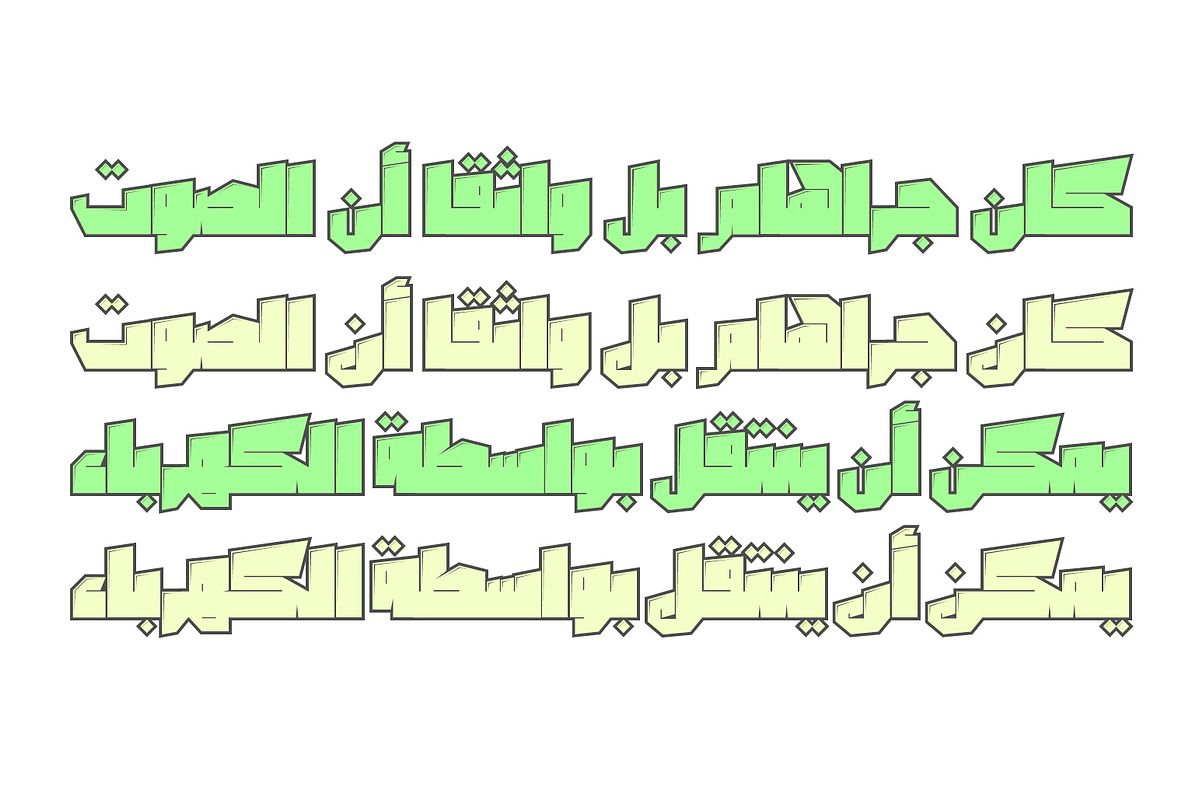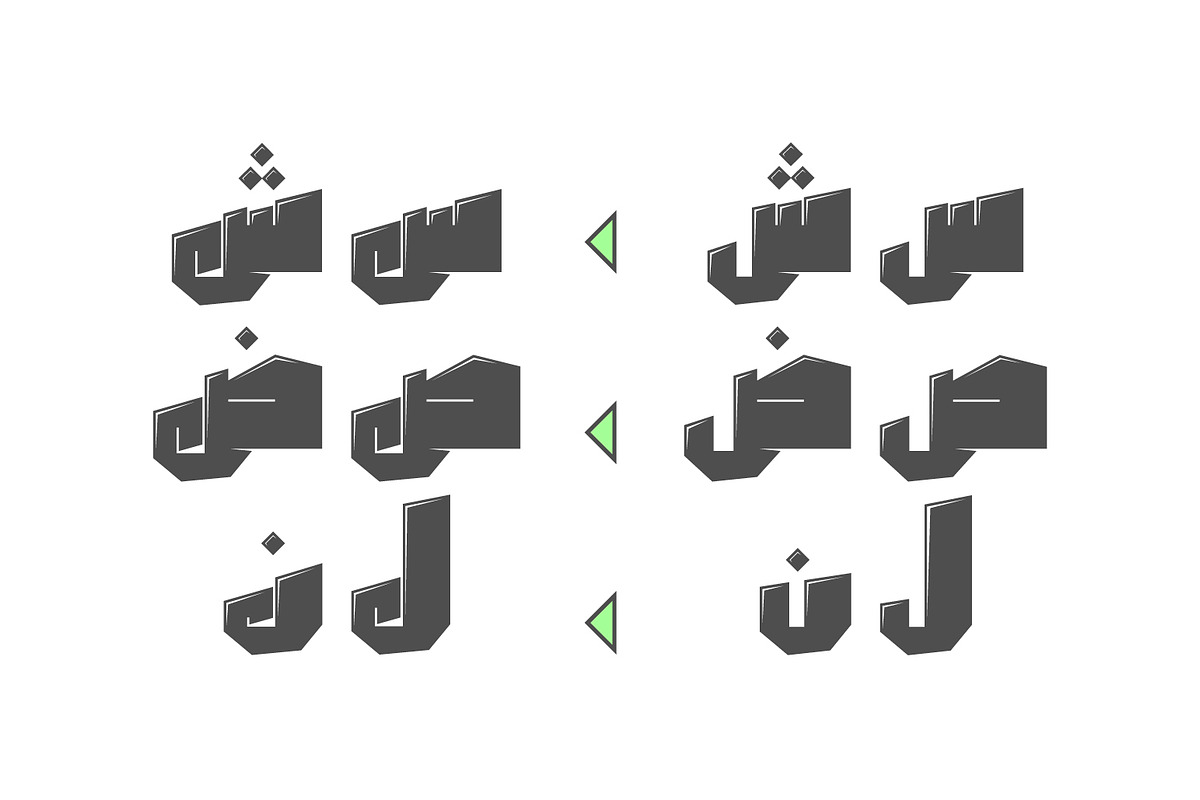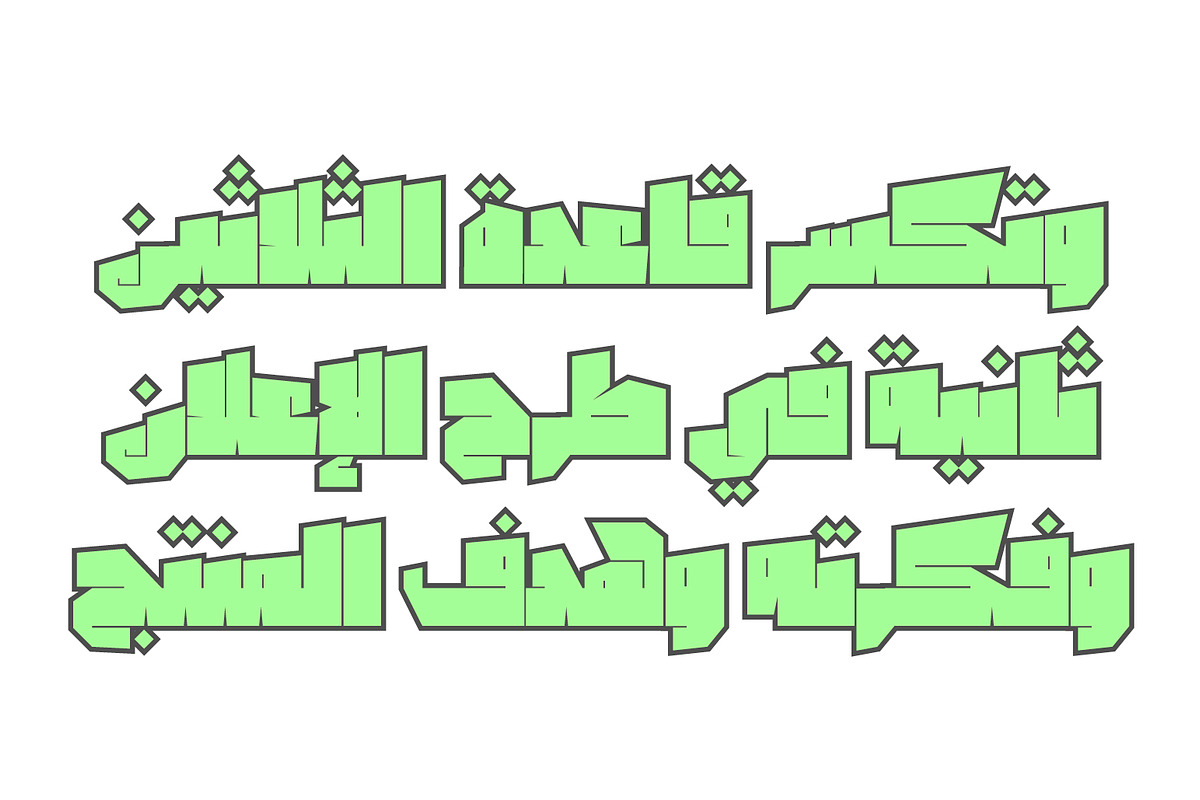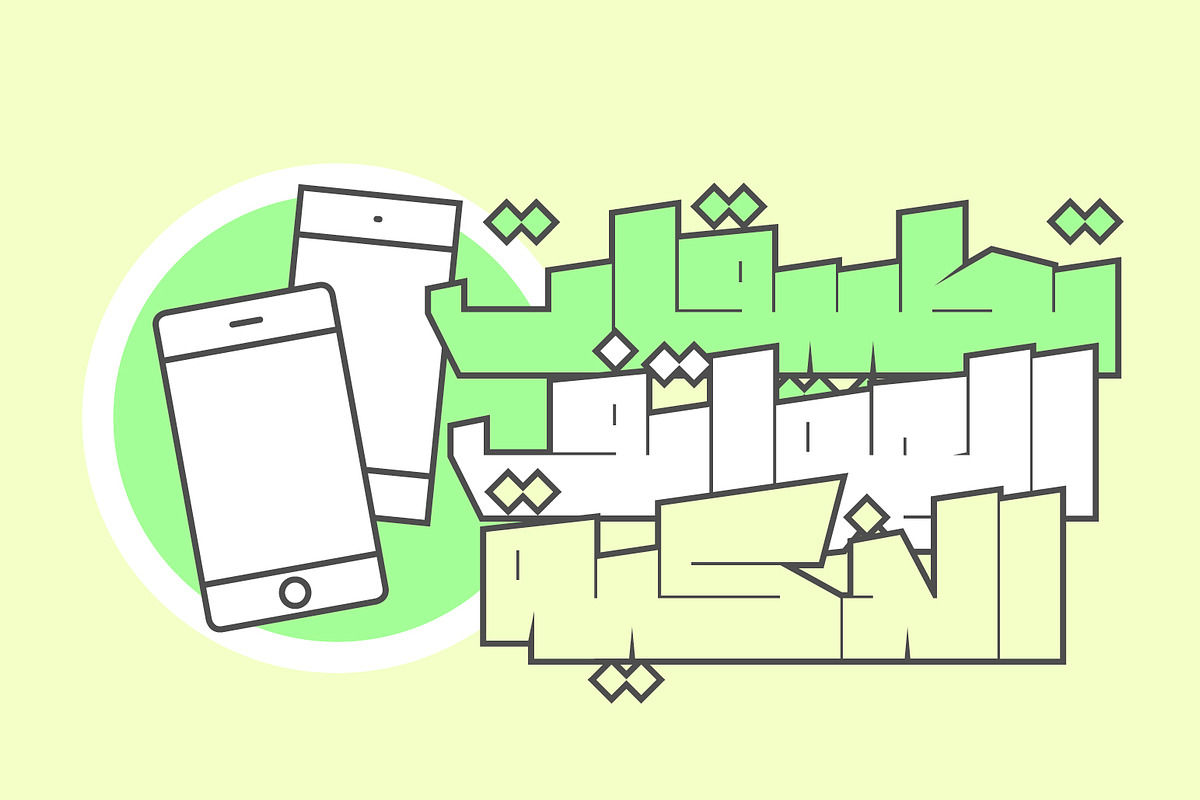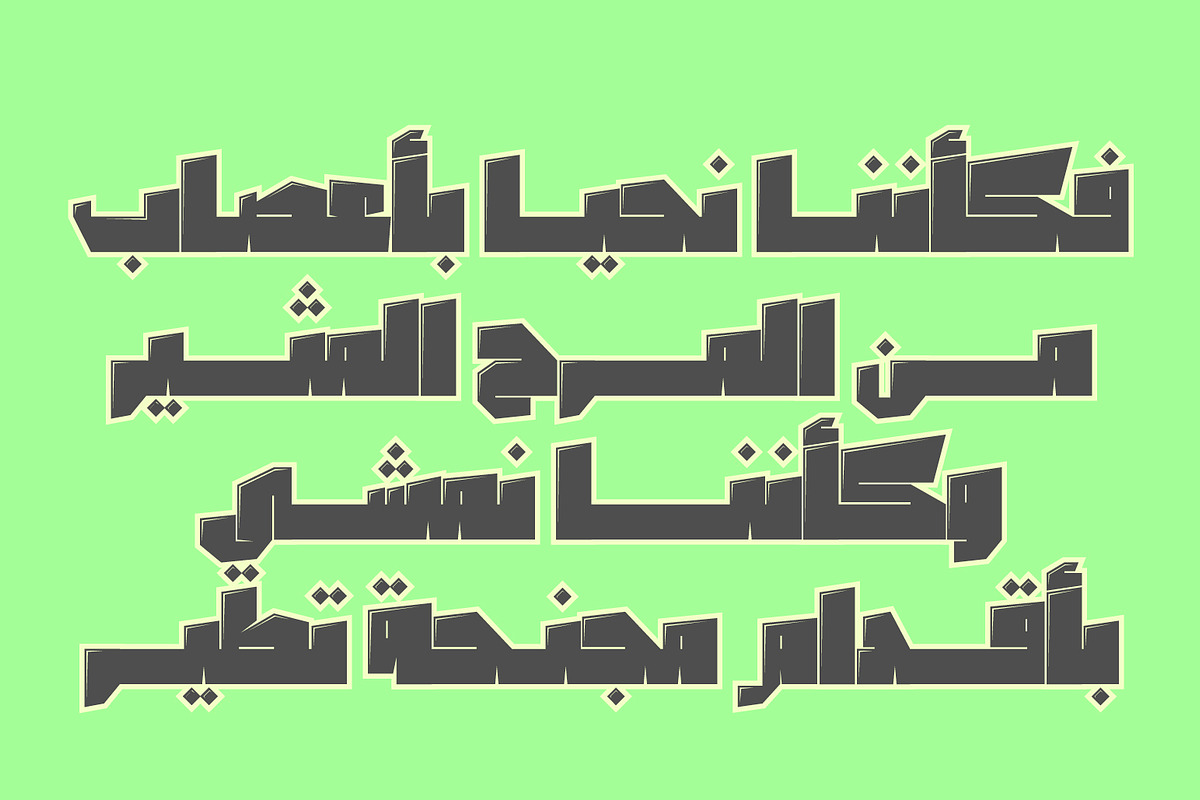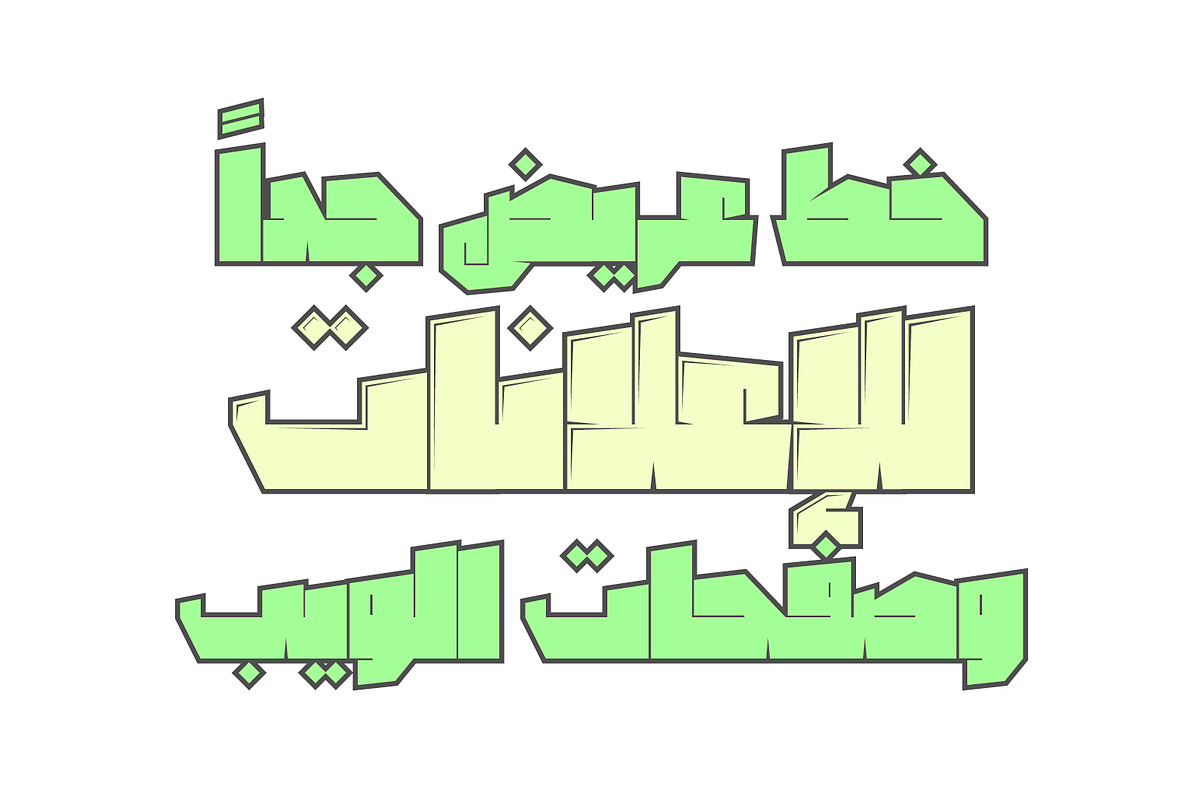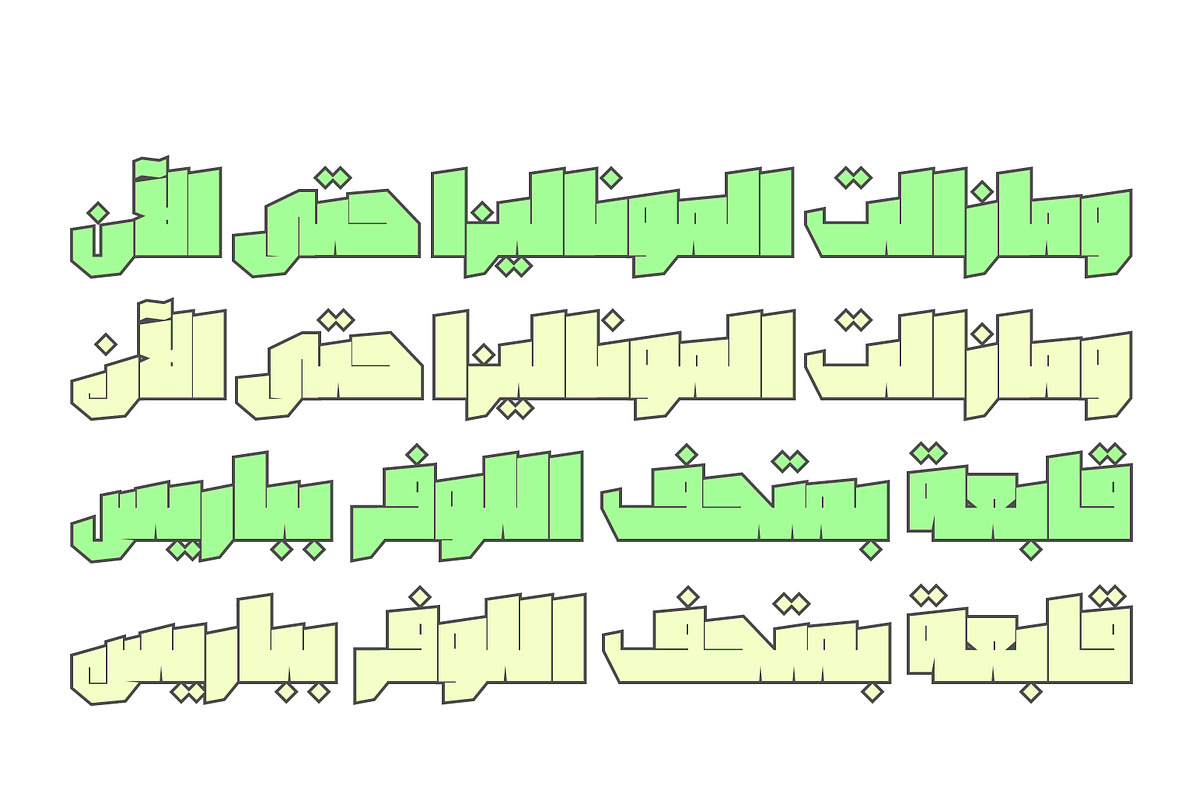
Dahka - Arabic Font | خط ضحكة
Dahka is a humorous Arabic font that comes in three styles, thin, normal and embossed. It suits various range of display purposes including web design, advertising, branding and mobile applications.
- Dahka Thin
- Dahka Normal
- Dahka Embossed